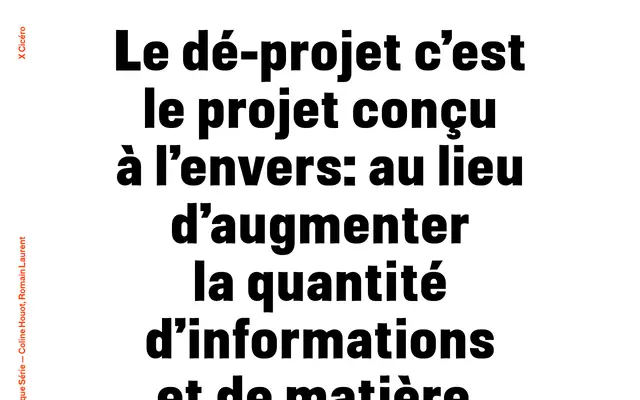
Antique Série
An experimentally framed serif from X Cicéro, the student type foundry of ESAD Grenoble-Valence, oriented around reduction and simplification.
Released under X Cicéro's philosophy of the 'dé-projet', a design methodology that removes rather than adds, Antique Série sits within a conceptual framework of stripping back information and material to its essentials. The foundry's programme at ESAD Grenoble-Valence positions the work as a critique of accumulation in design process. Little technical detail is available from the page, but the editorial framing suggests a typeface suited to considered, stripped-back typographic applications.
The name 'Antique Série' and the foundry's experimental ethos suggest a serif in the antique or early grotesque-adjacent tradition; the sparse page content prevents further classification precision.